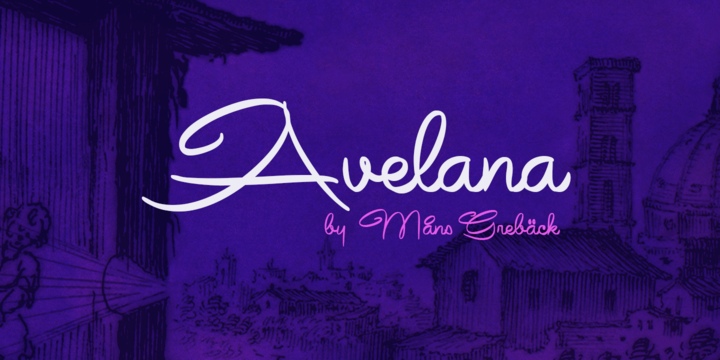
Avelana Font
Avelana Font is perfect for artisanal bakery branding, organic nut company packaging, rustic farm market signage, natural health food labels, cozy cafe menus, Mediterranean restaurant marketing, wholesome family business logos, and earth-friendly product displays. This warm typeface excels in applications where natural nourishment and artisanal craftsmanship are essential for creating authentic and wholesome brand experiences that celebrate the goodness of natural ingredients.
What makes Avelana Font truly exciting is its genuine embodiment of natural warmth and nutty richness that captures the essence of hazelnuts and the wholesome comfort of traditional food craftsmanship. The font features organic letterforms with gentle curves and natural texture variations that mirror the smooth shell of hazelnuts and the rustic charm of artisanal food preparation. Its nourishing personality and earthy character create an immediate sense of warmth and natural goodness that resonates with audiences seeking authentic food experiences and wholesome nutrition. The typeface's natural appeal and artisanal quality make it perfect for brands wanting to convey nourishment, authenticity, and connection to traditional food culture and natural ingredients.
The Avelana Font family includes regular and textured versions, complemented by organic alternates and nature-inspired decorative elements. The font offers comprehensive character sets with natural symbols, wholesome ligatures, and artisanal styling details that enhance its earthy aesthetic. Additional graphic elements including nuts, leaves, organic shapes, and natural motifs provide designers with complete branding tools rooted in agricultural traditions and artisanal food culture.
For designers seeking an authentic natural food-inspired typeface, Avelana Font Free Download represents a perfect choice that brings wholesome nourishment to contemporary brand communications. Whether you're creating identities for artisanal food companies, designing materials for organic product brands, or developing marketing campaigns for farm-to-table businesses, this font delivers the natural authenticity that appeals to health-conscious consumers and food enthusiasts. Its nutty character and artisanal appeal make it particularly effective for brands in food production, organic agriculture, and natural health industries. The font's ability to evoke feelings of comfort, nourishment, and natural goodness makes it an invaluable asset for creating brand communications that celebrate wholesome food culture, artisanal craftsmanship, and the life-sustaining power of natural ingredients in promoting health, family connection, and sustainable living practices.